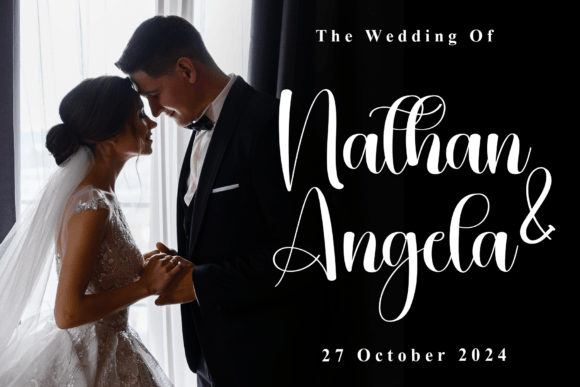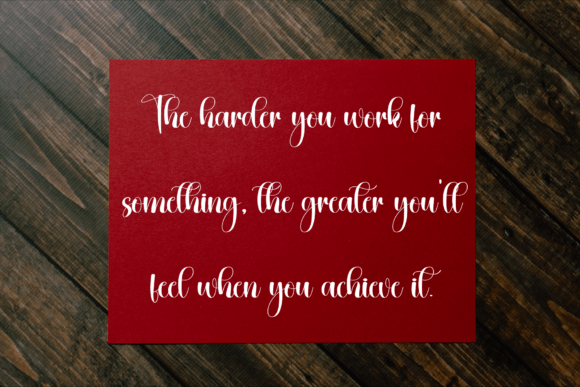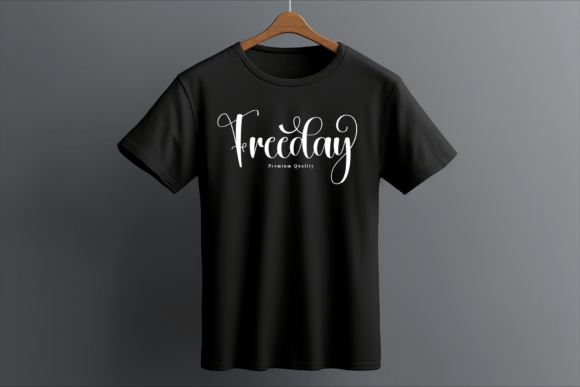
Introduction to Baby Starnight Font
Baby Starnight is a sweet, handwritten font with a playful, whimsical look.
It has soft, rounded letters that make it feel warm and friendlyβ€”perfect for kids’ designs, invitations, and cute, cozy projects .